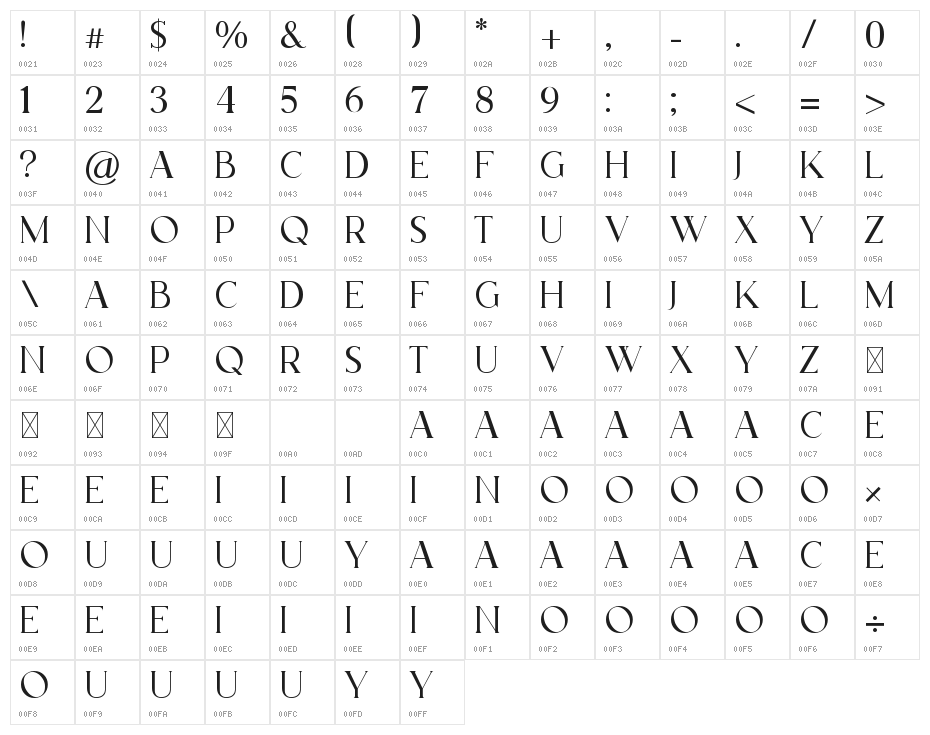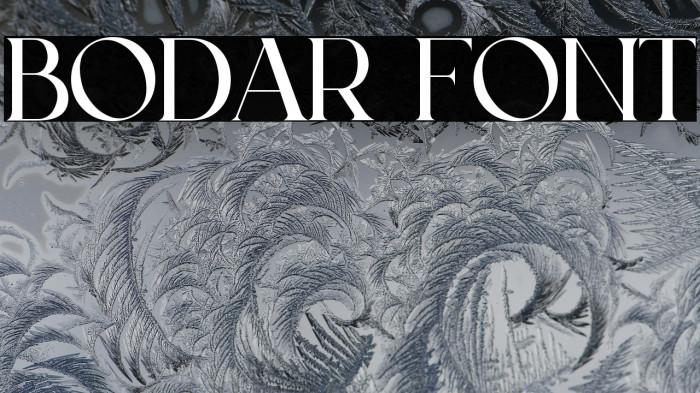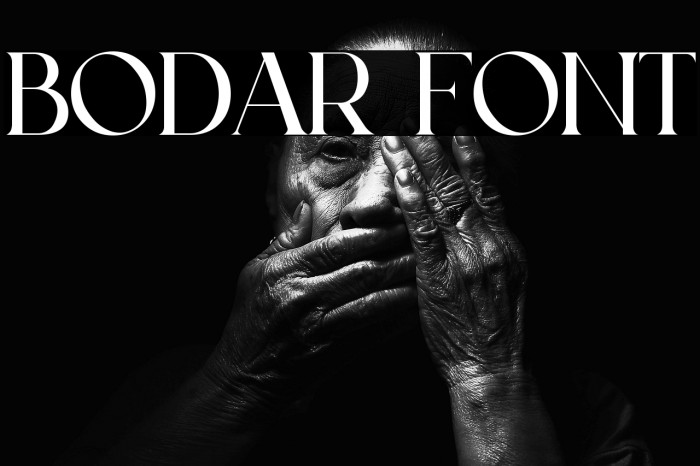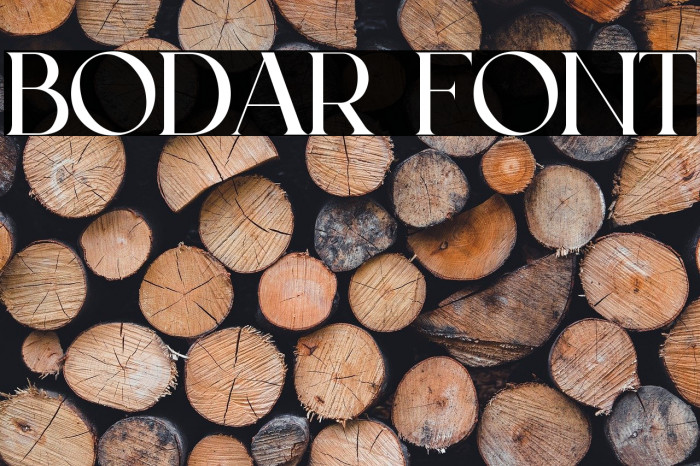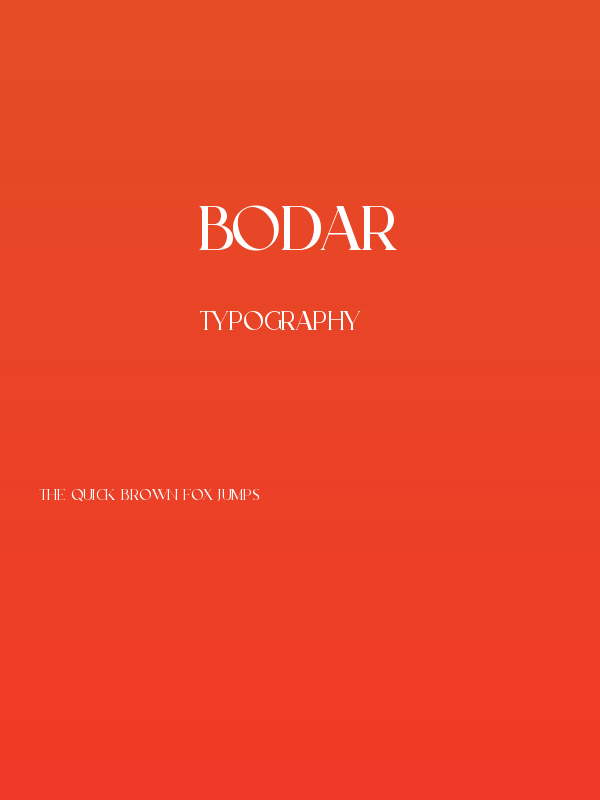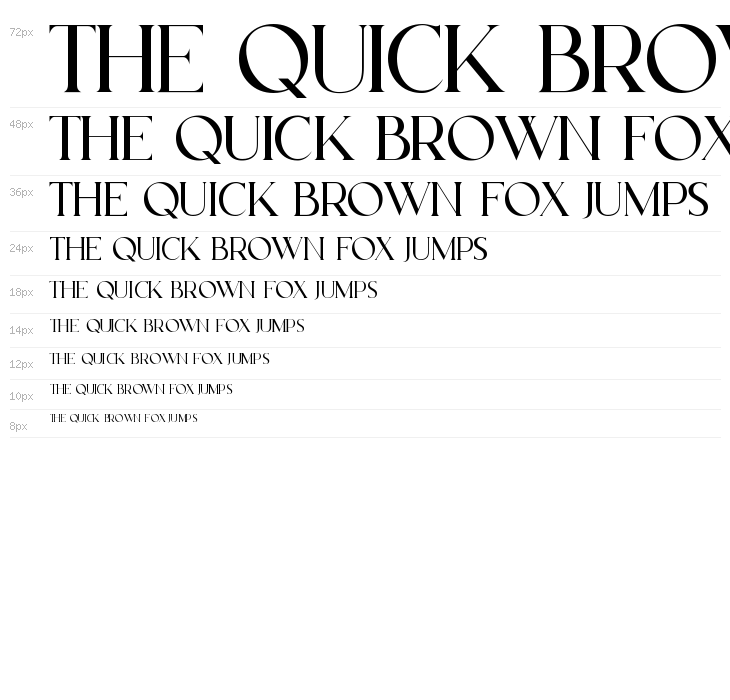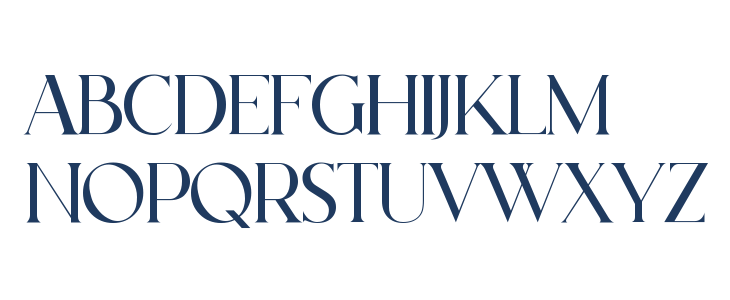
BODAR Font
BODAR Description
This font features a striking and elegant design with high contrast between thick and thin strokes, giving it a sophisticated and modern appearance. The serifs are sharp and pronounced, adding a touch of classic elegance. The uppercase letters are tall and commanding, while the lowercase letters maintain a consistent style that complements the overall aesthetic. The numerals are distinct and easy to read, with a similar contrast in stroke thickness. Special characters are designed with the same attention to detail, ensuring a cohesive look across all glyphs.
| Proposed Projects | Ideal for luxury branding, editorial design, fashion magazines, and upscale packaging. |